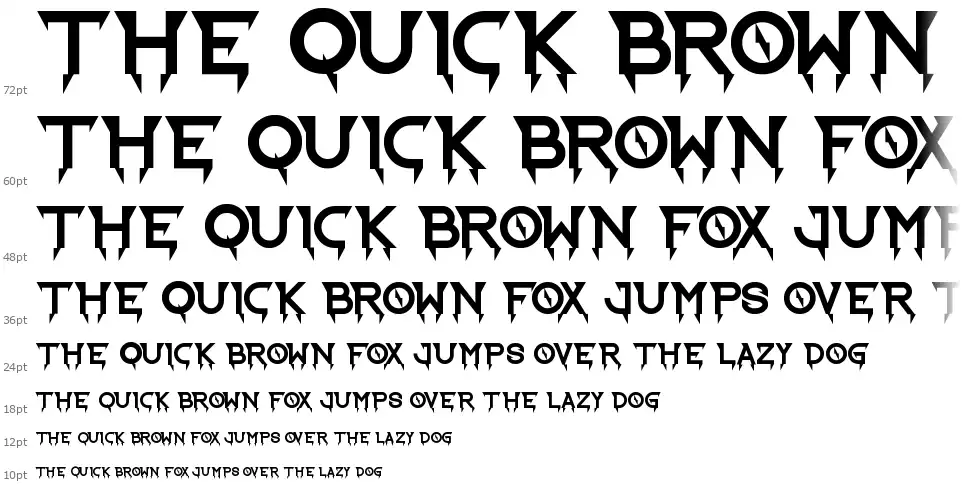
Ride The Lightning Font . download free ride the lightning font, view its character map and. Released in 2011 by weknow and licensed for. Download and install the ride the. Moreover, you can embed it to your website with. Complete pack contains 8 font weights listed below: ride the lightning font download is available free from fontget. Ride the lightning is a gothic type font that can be. licensed for commercial and personal use. — free download of ride the lightning font family with 8 styles. ride the lightning font | designed by weknow | download ride the lightning for windows and mac | category: